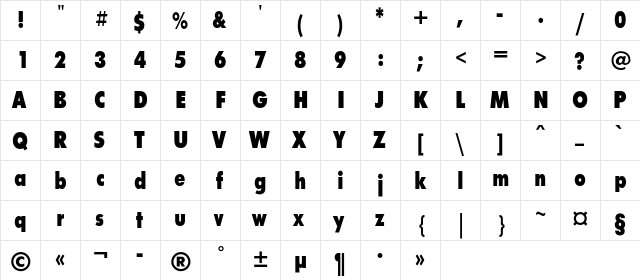
FuturaFuturisCondExtraBoldC Regular Font Preview
Design Context for FuturaFuturisCondExtraBoldC Typeface
FuturaFuturisCondExtraBoldC channels digital-age aesthetics through its sharp, structured letterforms — ideal for brands that want to signal innovation. The heavy weight commands attention and anchors typographic hierarchies. Its narrow stance lets it pack a punch even in space-constrained designs.